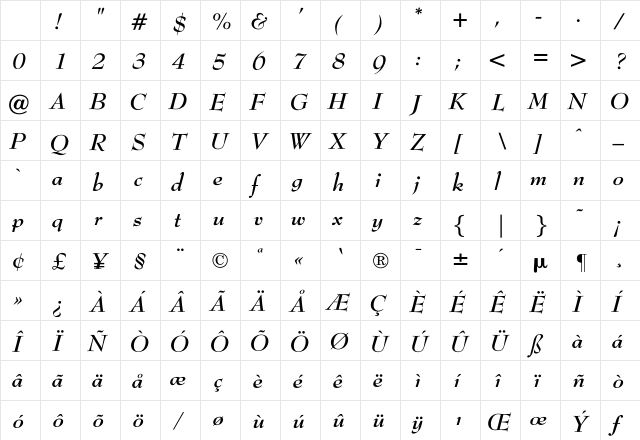
OPTIBenjieModern is a composed and adaptable typeface that performs quietly and consistently across a wide range of design contexts. Its bold stroke weight gives it real presence on the page.